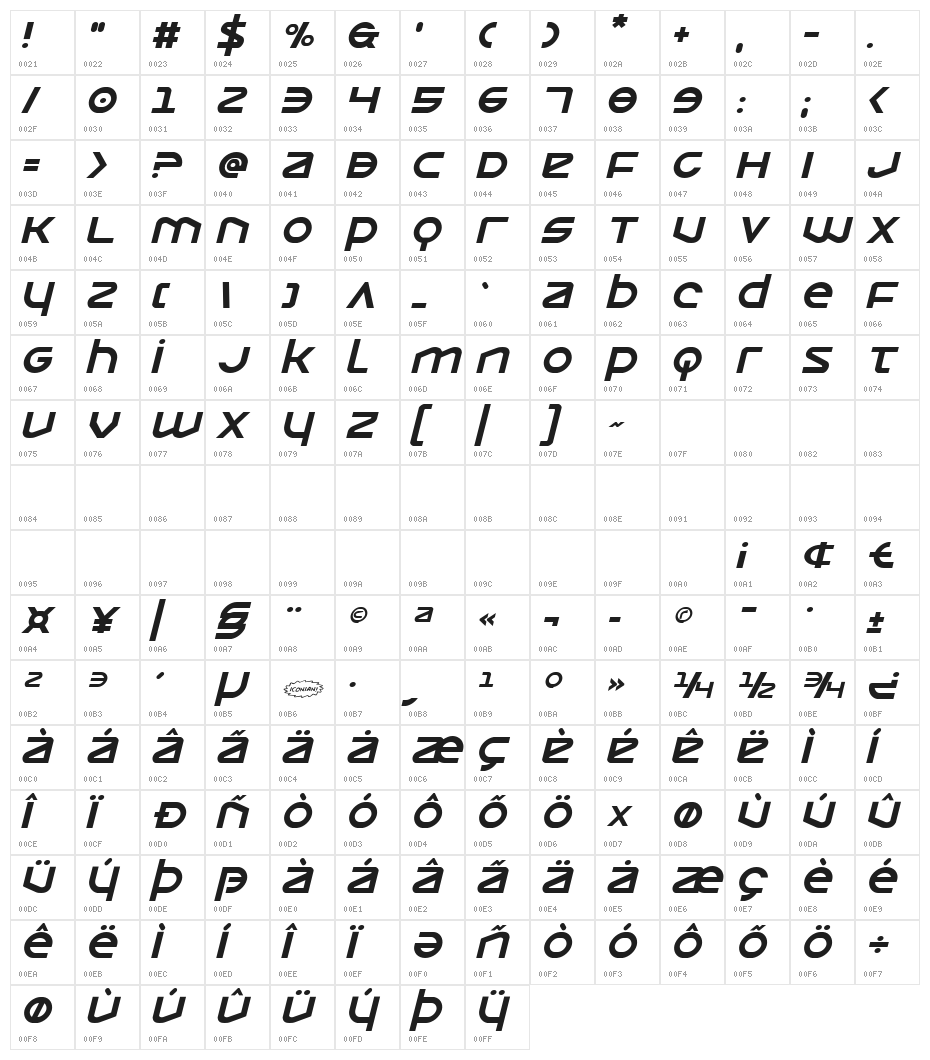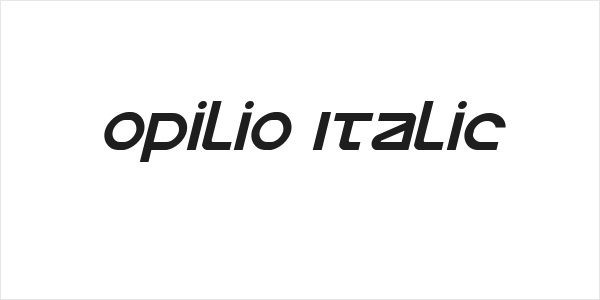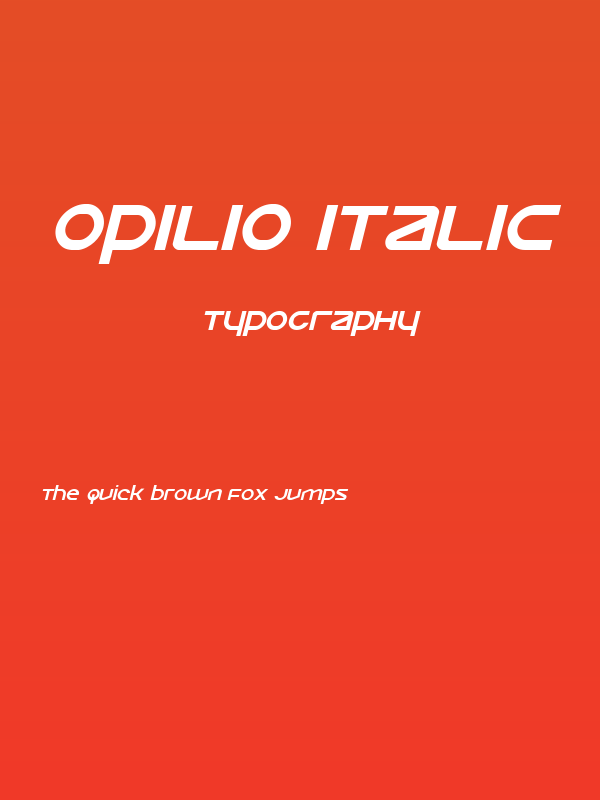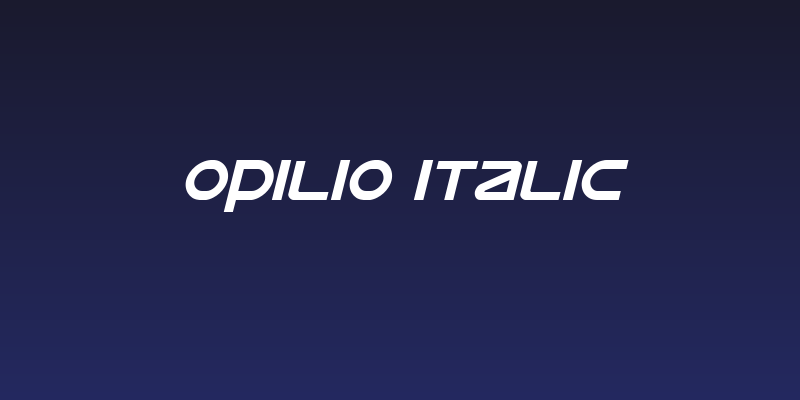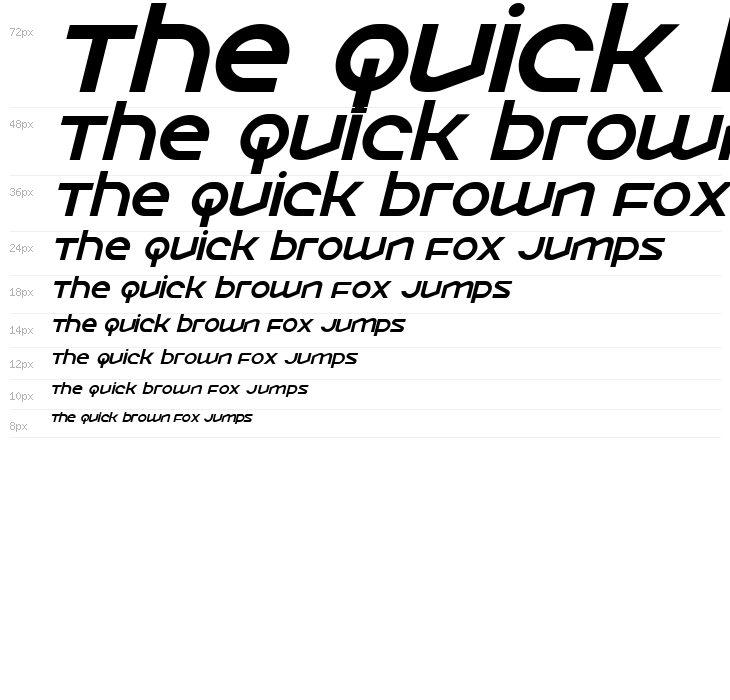
Opilio Italic Font
Opilio Italic Description
This font features a dynamic and modern italic style, characterized by its slanted and angular letterforms. The design incorporates a futuristic aesthetic with clean, sharp edges and a consistent forward tilt, giving it a sense of motion and energy. The uppercase and lowercase letters maintain a uniform style, with a slightly condensed appearance that enhances readability while preserving a sleek look. The numerals and special characters complement the alphabet with similar angular and slanted features, ensuring a cohesive overall appearance. This font's unique style makes it suitable for projects that require a contemporary and energetic feel.
| Overall Style | Modern, Futuristic |
| Use Case | Logos, Headlines, Branding |
| Proposed Projects | Ideal for branding, advertising, sports team logos, tech-related designs, and modern editorial layouts. |